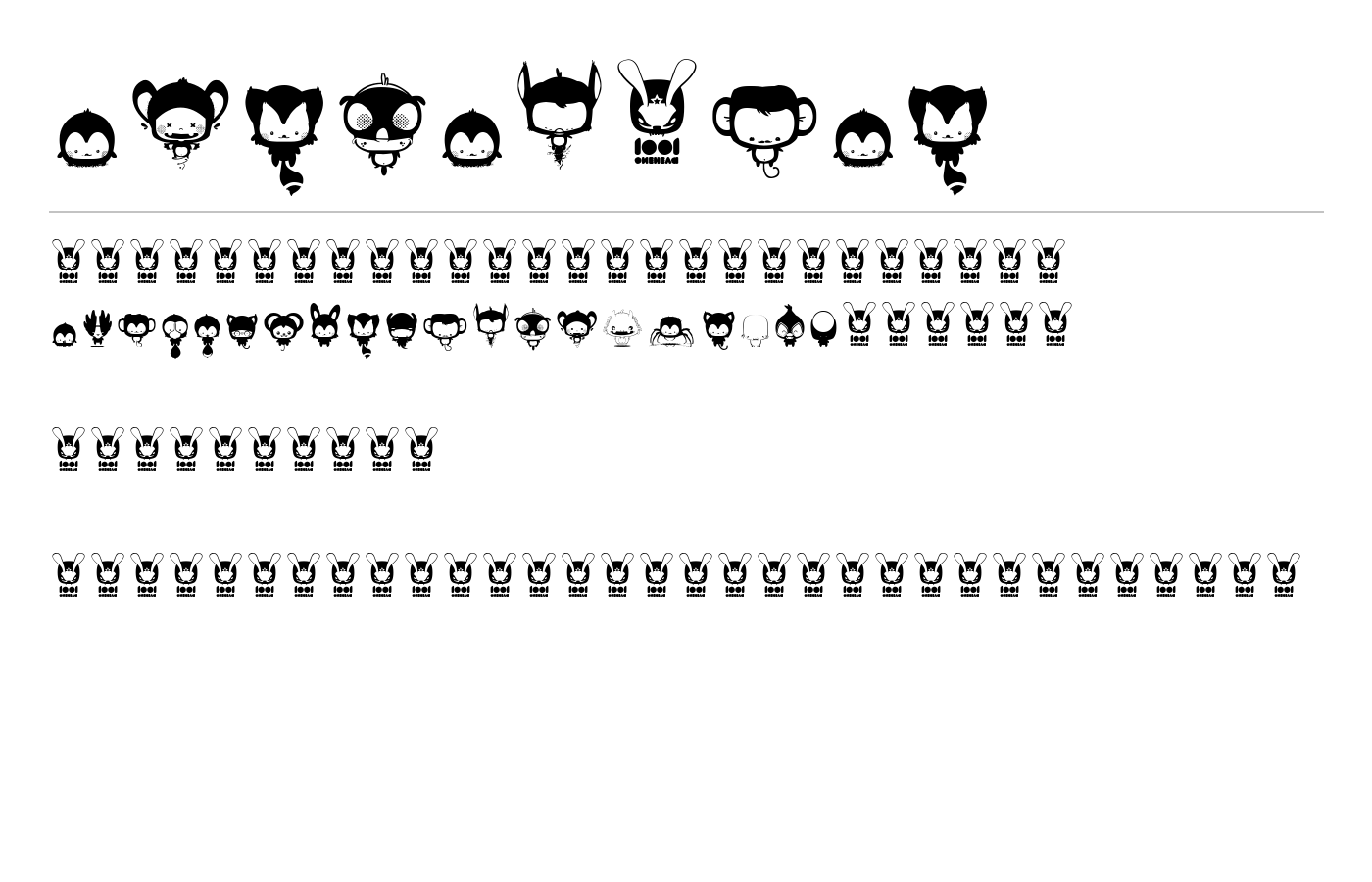
Animal_kai is a playful and charming dingbat font featuring a collection of cute, cartoon-style animal faces and characters. With its whimsical design and bold, solid shapes, it’s perfect for adding a fun and friendly touch to children’s projects, party invitations, or branding that wants to convey warmth and approachability. This font works best in creative and informal contexts where a lively and engaging visual impact is desired.
animal_kai Font
About animal_kai Font
| Font family | animal_kai Font |
| Designer | Thomas Boucherie |